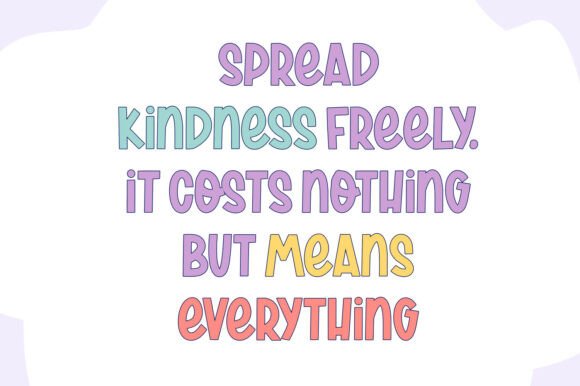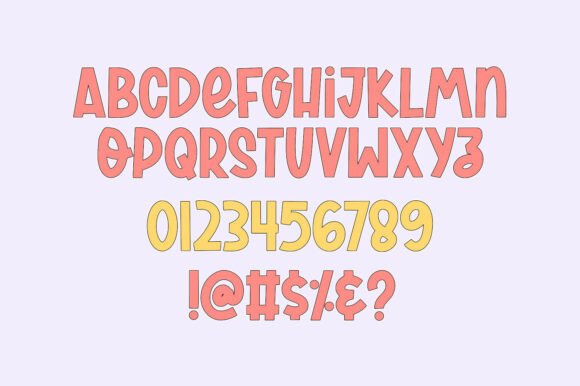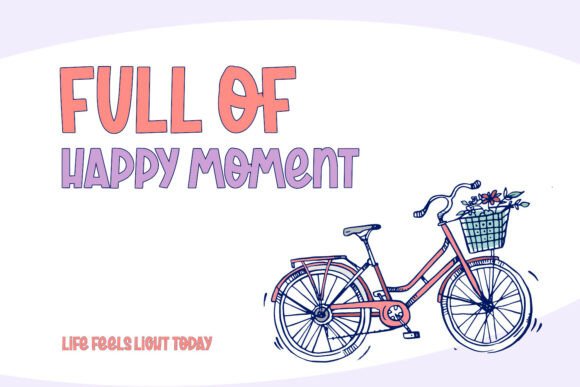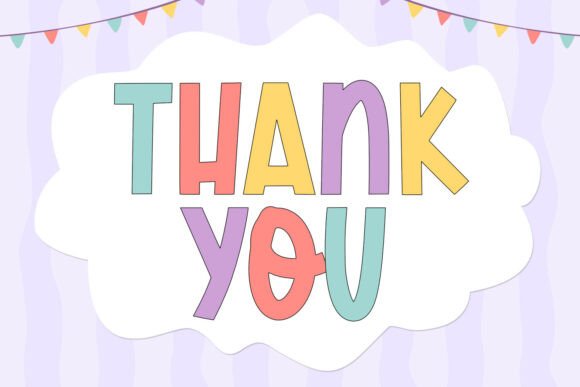
Fisner Souls Font: The Ultimate Choice for Colorful and Playful Designs
Are you a designer or crafter looking for a font that can add a touch of joy and charm to your projects? Look no further than Fisner Souls Font! This colorful and cute display font is designed to bring a sense of playfulness and vibrancy to any design, making it perfect for kids’ projects, fun branding, packaging, posters, and creative visuals.
What Makes Fisner Souls Font So Special?
Fisner Souls Font is a unique and eye-catching font that stands out from the crowd. Its soft shapes and playful proportions give it a sweet and friendly feel that’s sure to capture the attention of your audience. Whether you’re working on a children’s book, a kids’ party invitation, or a fun brand identity, Fisner Souls Font is the perfect choice.
Key Features of Fisner Souls Font
- Colorful and playful: Fisner Souls Font is a display font that’s designed to add a pop of color and playfulness to your designs.
- Soft shapes and proportions: The font features soft shapes and playful proportions that give it a sweet and friendly feel.
- Perfect for kids’ projects: Fisner Souls Font is ideal for kids’ projects, such as children’s books, party invitations, and educational materials.
- Suitable for fun branding and packaging: The font is also great for fun branding and packaging projects that require a playful and vibrant feel.
- Easy to read and use: Despite its playful nature, Fisner Souls Font is easy to read and use, making it a great choice for designers and crafters of all levels.
How to Use Fisner Souls Font in Your Designs
Fisner Souls Font is a versatile font that can be used in a variety of design projects. Here are a few ideas to get you started:
- Kids’ party invitations: Use Fisner Souls Font to create fun and playful party invitations that will get your little ones excited.
- Children’s books: Fisner Souls Font is perfect for children’s books, adding a touch of whimsy and fun to your story.
- Fun branding and packaging: Use Fisner Souls Font to create fun and playful branding and packaging that will stand out on store shelves.
- Posters and flyers: Fisner Souls Font is great for posters and flyers that require a bold and eye-catching font.
Tips and Tricks for Getting the Most Out of Fisner Souls Font
Here are a few tips and tricks for getting the most out of Fisner Souls Font:
- Experiment with colors: Fisner Souls Font is a colorful font, so don’t be afraid to experiment with different colors and combinations.
- Use it with other fonts: Fisner Souls Font pairs well with other fonts, so try using it with a bold font for headings and a clean font for body text.
- Play with proportions: Fisner Souls Font features playful proportions, so don’t be afraid to experiment with different sizes and scales.
Fisner Souls Font is a unique and eye-catching font that’s perfect for designers and crafters looking to add a touch of joy and charm to their projects. With its soft shapes, playful proportions, and colorful design, Fisner Souls Font is sure to bring a sense of playfulness and vibrancy to any design. Whether you’re working on a kids’ project, fun branding, or creative visuals, Fisner Souls Font is the ultimate choice.